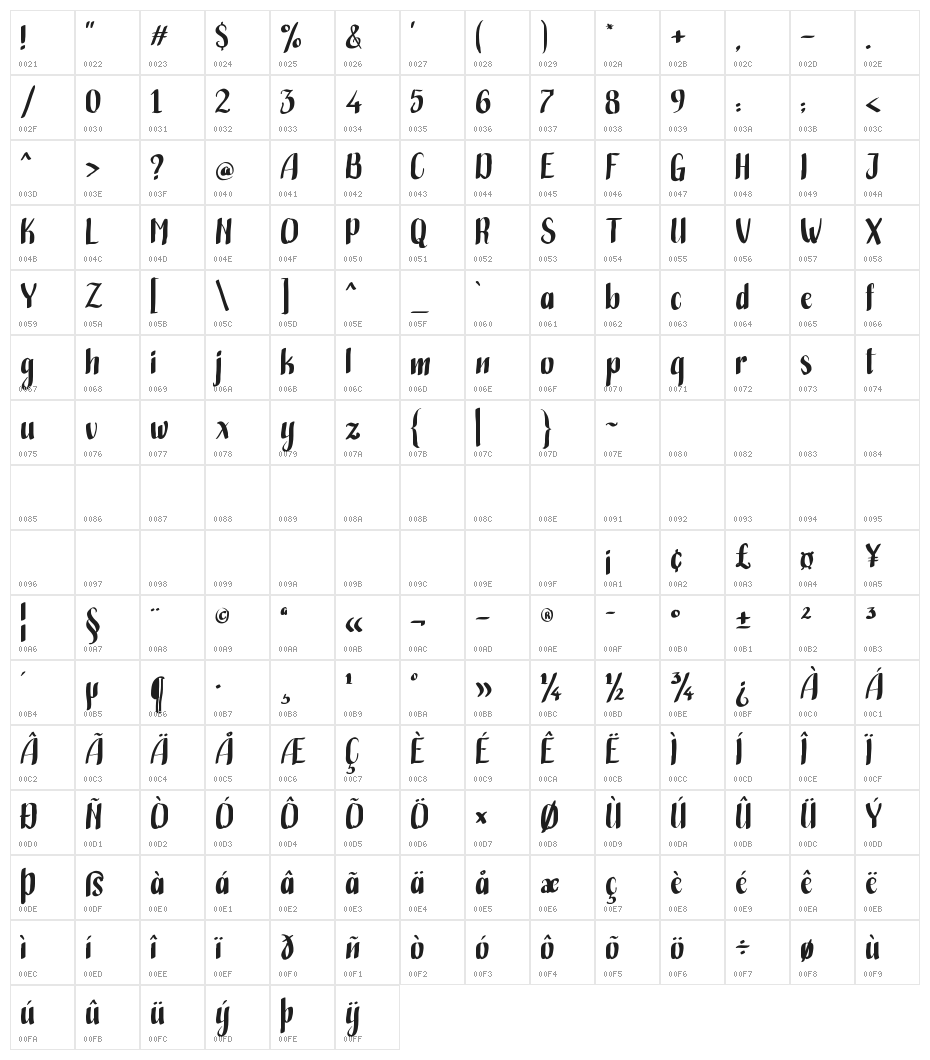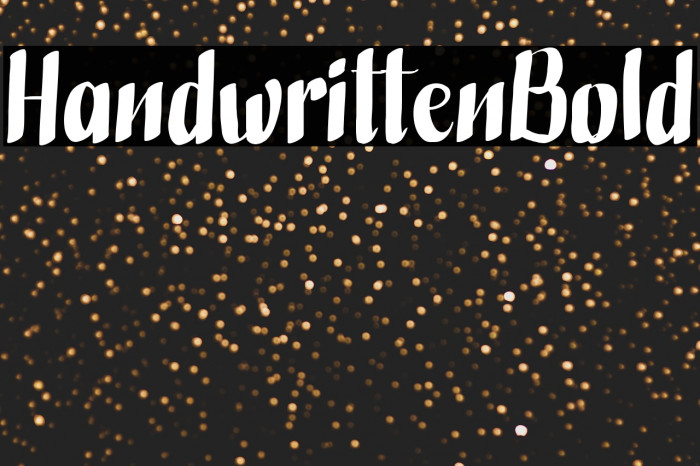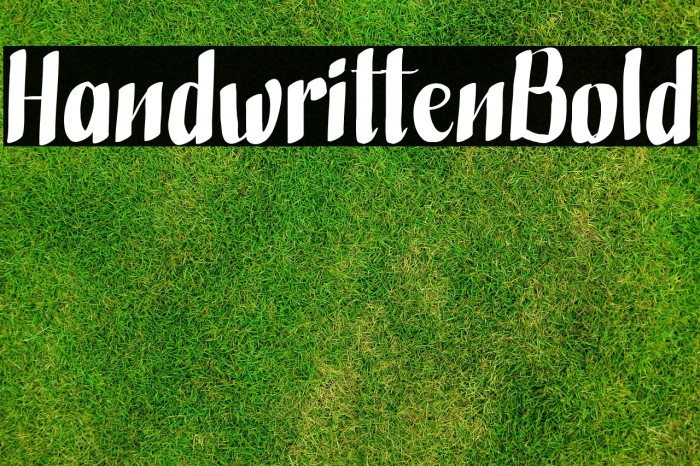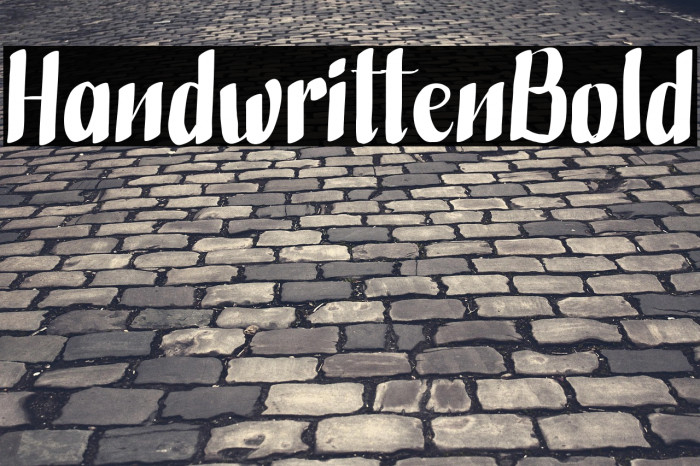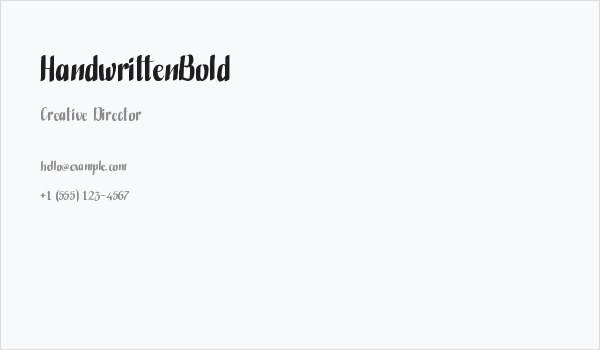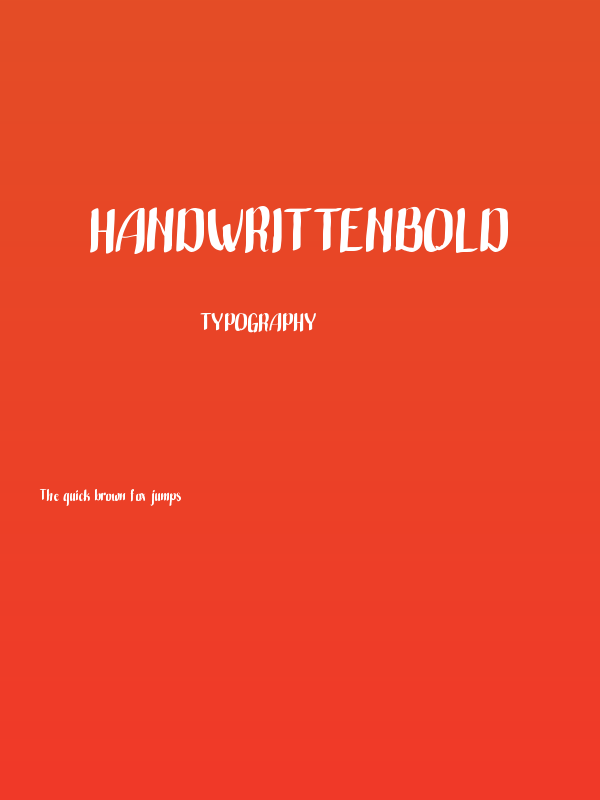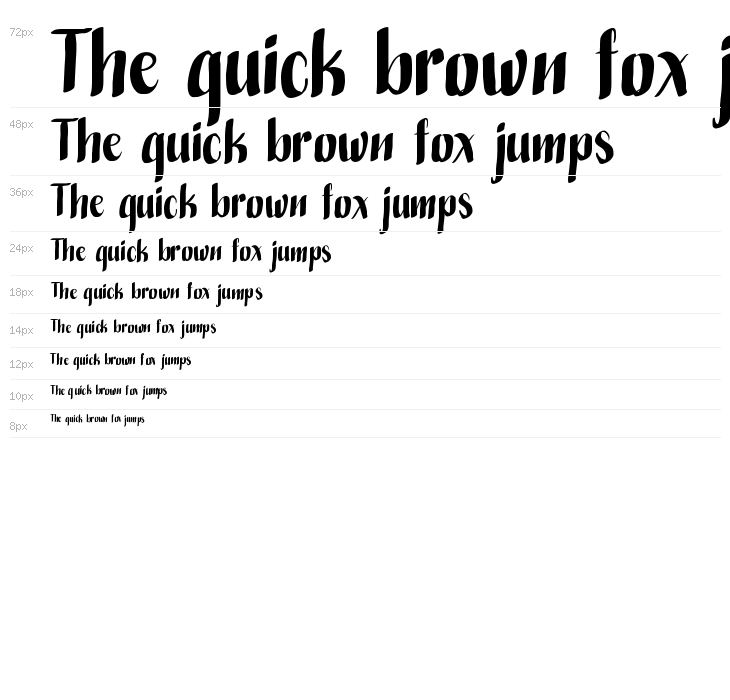
HandwrittenBold Font
HandwrittenBold Description
This font exudes a bold and dynamic handwritten style, characterized by its fluid and expressive strokes. The uppercase and lowercase letters maintain a consistent flow, with a slight slant that adds to its casual yet sophisticated appearance. The numerals and special characters are crafted with the same attention to detail, ensuring a cohesive look across all elements. The font's boldness is evident in its thick strokes, which provide a strong visual impact, making it ideal for attention-grabbing designs. Its handwritten nature gives it a personal and approachable feel, suitable for creative and artistic projects.